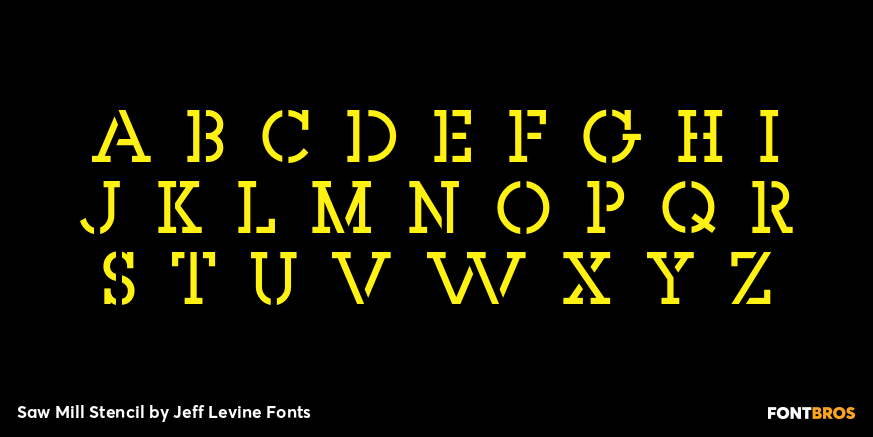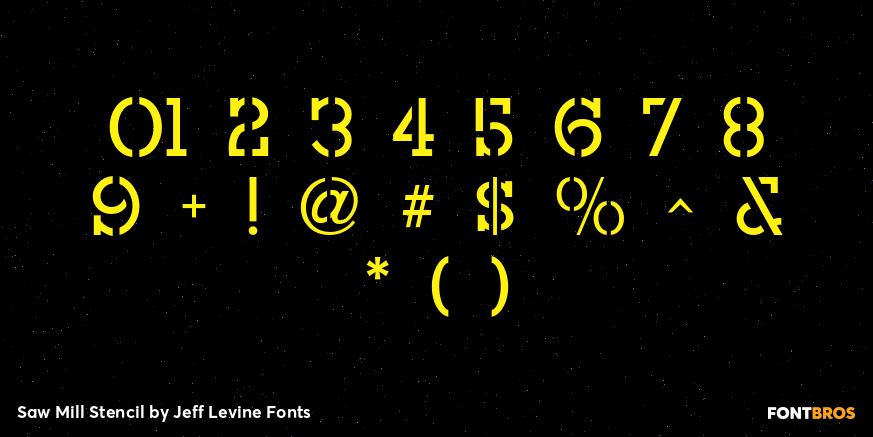
Saw Mill Stencil
A vintage metal stencil from a saw mill with the term 'reusable skid' was the model for Saw Mill Stencil JNL.
Although the original was what would be termed a semi-stencil (some letters did not have 'breaks' in them), the font was designed with a more traditional look.